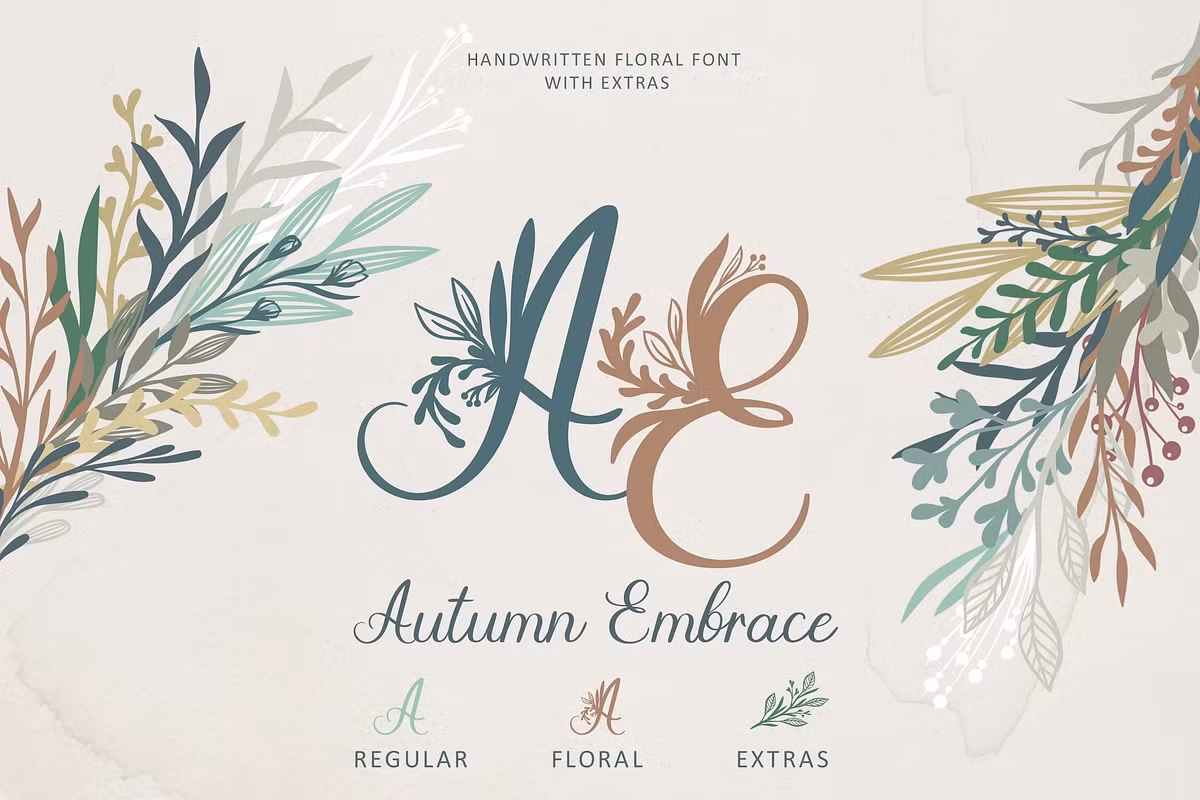
Autumn Embrace Floral Font Free Download is a beautifully crafted typeface that combines the charm of floral elements with the warm, earthy tones of autumn. Perfect for seasonal designs, this font is ideal for creating elegant fall-themed invitations, seasonal marketing materials, greeting cards, and nature-inspired branding. The delicate floral details intertwined within each letter bring an organic, handmade feel to your projects. Whether you're designing for a cozy café, a wedding event, or a fall festival, Autumn Embrace Floral Font Free Download lets you test its graceful beauty in personal projects before purchasing a full commercial license. Bring the essence of autumn into your designs with a font that captures the season's warmth, beauty, and natural elegance.